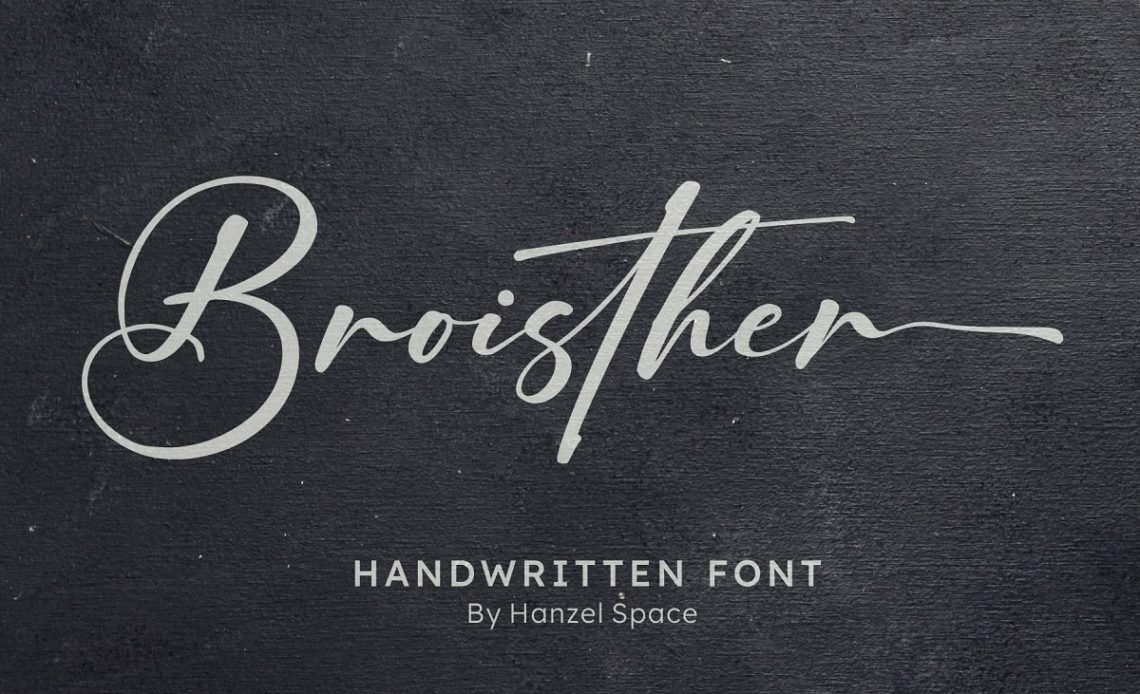
Looking for a handwriting font that adds a unique touch to your projects? Look no further than Broisther Handwritten Font! Created by the talented Hanief Farandi, this font is inspired by handwriting and adds a beautiful aesthetic touch to any design.
Whether you're creating stationery, packaging, apparel, wedding invitations, social media graphics, logos, or branding, Broisther is the perfect choice. With its versatility, you can use it for both web and print projects.
The font includes a full set of standard alphabet and punctuation, an extra set of ending swashed lowercase, and 28 beautiful ligatures that add an extra flair to your designs. The set also includes numerals and symbols, giving you everything you need for any project.